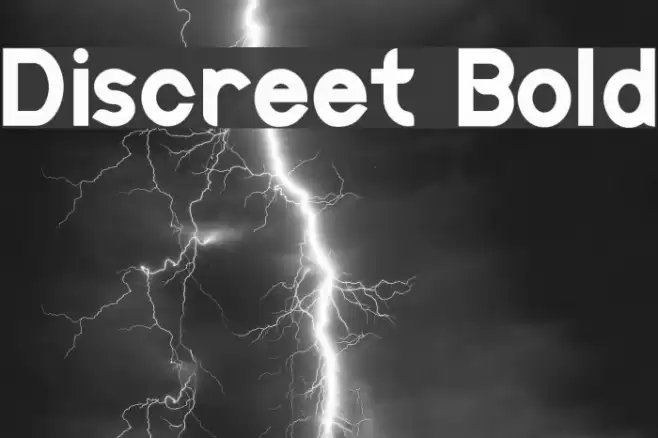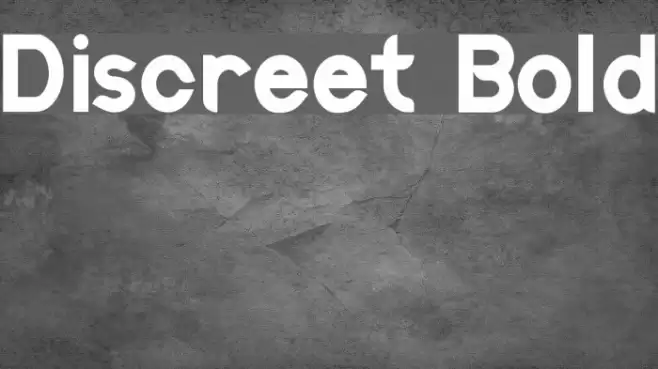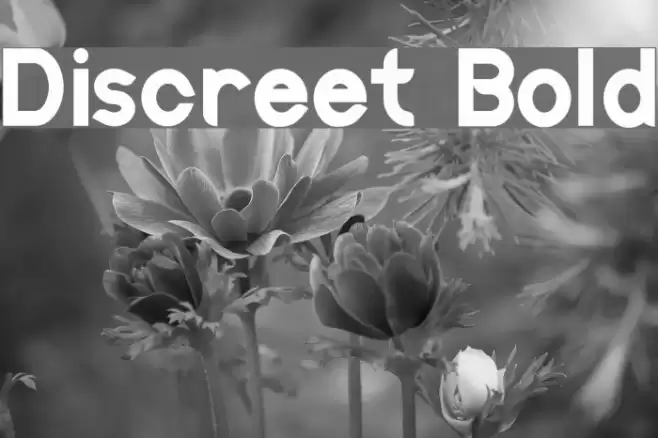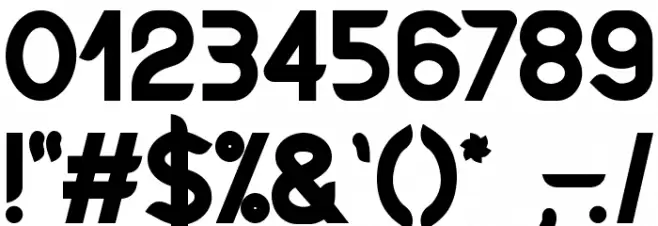
Discreet Bold Font
Discreet Bold Description
This font features bold, rounded characters with a modern and friendly appearance. The letters are evenly weighted, providing a strong and confident look. The rounded edges soften the overall feel, making it approachable and versatile. The numerals and special characters maintain the same boldness and rounded style, ensuring consistency across all glyphs. This font is highly legible, even at smaller sizes, due to its clear and distinct letterforms. The uniform stroke width and lack of serifs contribute to its contemporary and clean aesthetic, making it suitable for a wide range of applications.
A bold, rounded font with a modern and friendly style from Sans Serif fonts.
- Proposed Projects: Ideal for branding, advertising, packaging, and digital media where a modern and approachable look is desired.
- Use Case: Headlines, Logos, Branding